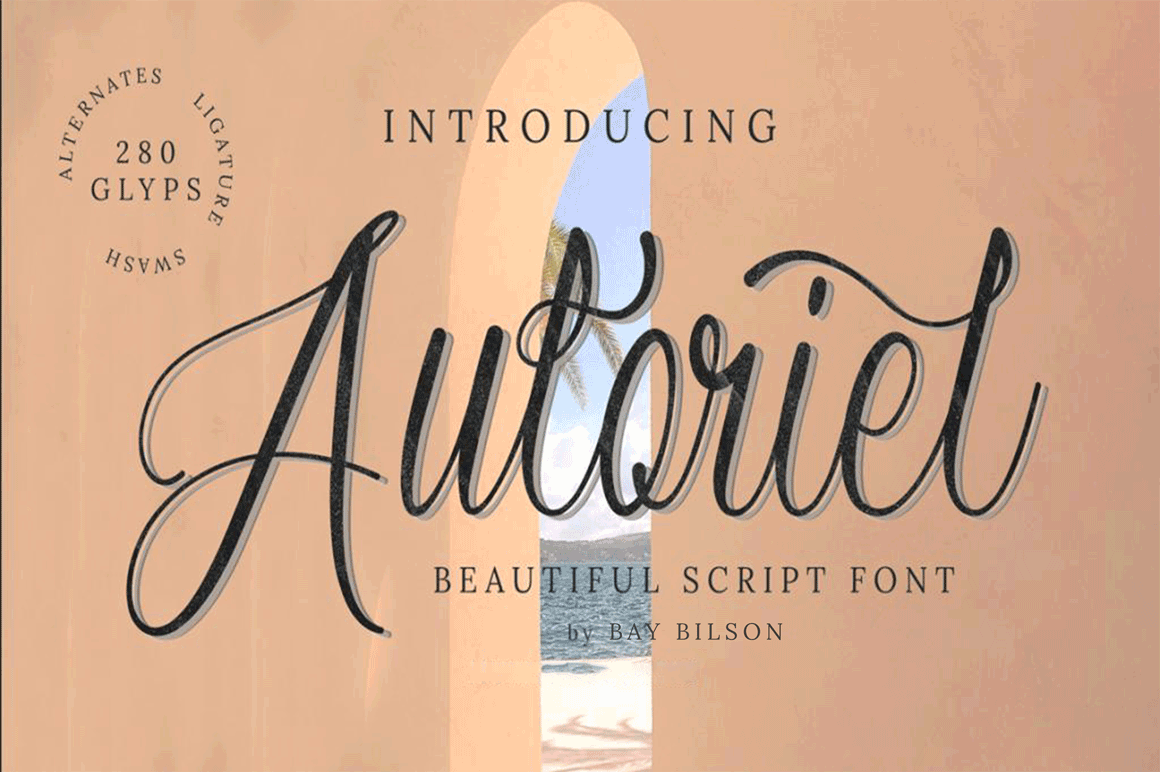
Auloriel Script Font
Beautiful calligraphy shows bold femininity. This unique script font will convey a sense of toughness and a feminine attitude and is suitable for brand logos, clothing designs, and more.
-Full alphabet with Uppercase and Lowercase A-Z for script
-Numbers for all fonts
-Punctuation and symbols for all fonts
-Alternates Lowercase script
-Ligature Lowercase script
- Swash Script
-Multilingual support all fonts